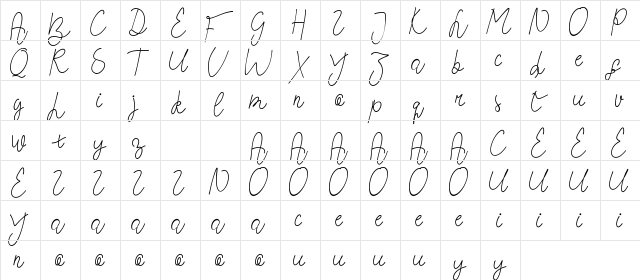
Look Down Demo Regular
Design Context for Look Down Demo Typeface
Look Down Demo is a composed and adaptable typeface that performs quietly and consistently across a wide range of design contexts.